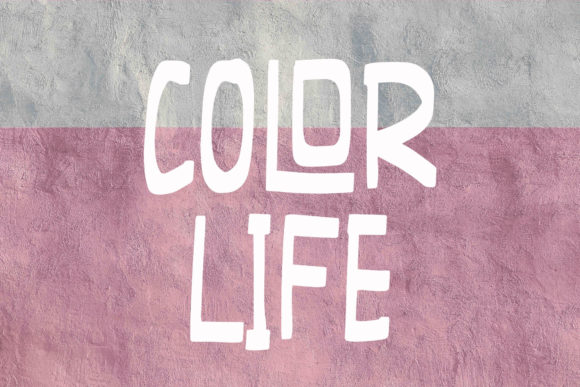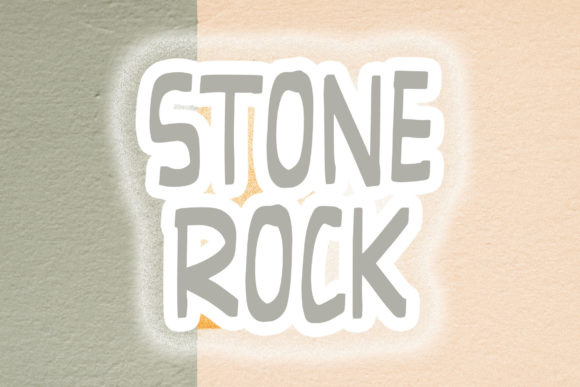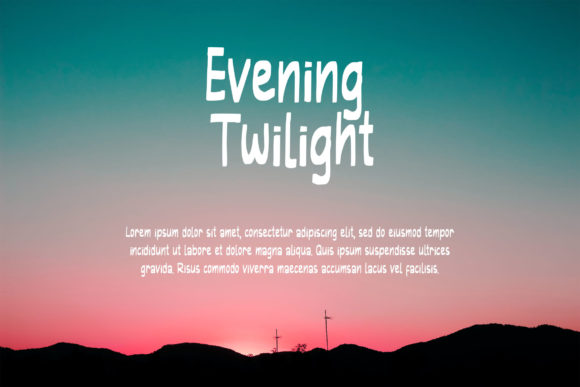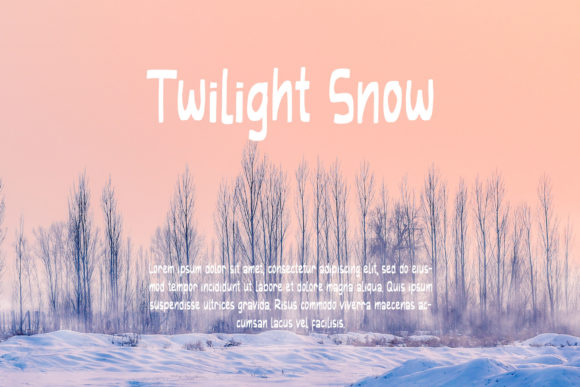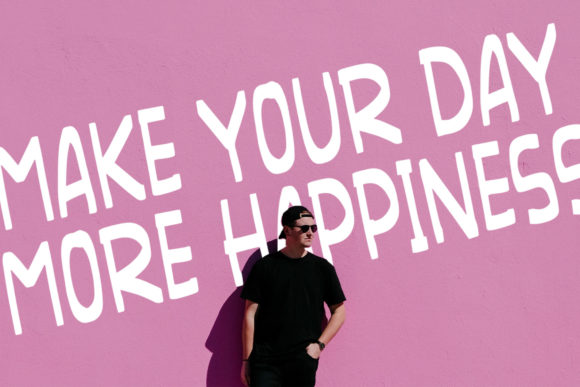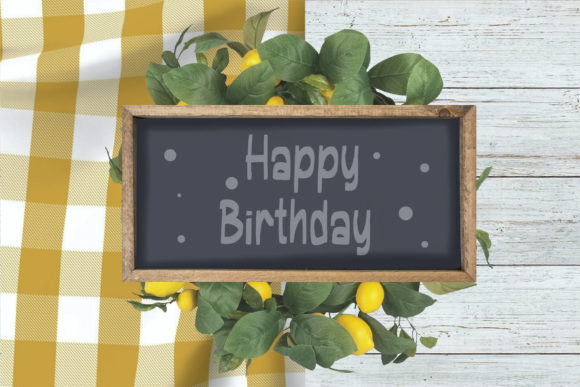
Introduction to Jacklo Font
Do you remember the moment when you stumbled upon the perfect font to elevate your creative project? For designers, that moment is priceless. It’s the spark that sets off a chain reaction of excitement and possibility. For me, that moment came when I discovered the Jacklo Font. Its charming, playful characters seemed to dance along the baseline, beckoning me to add it to my next design.
As a valuable design resource, the Jacklo Font is more than just a pretty face. With its high-quality, transparent background, it’s perfect for adding a touch of whimsy to any project. And the best part? It’s available for free download, making it accessible to designers of all levels. Whether you’re working on a personal project or a client’s creative brief, the Jacklo Font is sure to bring a smile to your face and a touch of magic to your design.
So, what makes the Jacklo Font so special? Let’s dive in and explore its features, and discover why it’s a must-have addition to any designer’s toolkit.
Key Features of Jacklo Font
- Features a transparent background, allowing for seamless integration with any design or image
- Perfect for use in digital designs, including logos, graphics, and typography, due to its crisp and clear resolution at 300 DPI
- Includes a range of weights and styles, providing designers with flexibility and versatility for their creative project
- Designed with precision and care, resulting in a professional and polished finish
Honest Review: Jacklo Font
As a designer, I’m always on the lookout for high-quality design resources to elevate my creative projects. Recently, I came across the Jacklo Font, and I’m excited to share my honest review.
- ✨ The Jacklo Font is a great addition to any design project, offering a unique and stylish feel.
- ✨ The transparent background option provides flexibility for designers to create stunning visual effects.
- ✨ The font is well-suited for a variety of creative projects, including logos, brochures, and social media graphics.
- ⚠️ The font may not be suitable for text-heavy designs, as it can be a bit difficult to read at smaller font sizes.
- ⚠️ Some designers may find the font’s unique style a bit too bold or overpowering for certain projects.
Overall, I’m impressed with the Jacklo Font and would recommend it to designers looking for a high-quality, unique font for their creative projects.
The Jacklo Font is a high-quality design resource that can be used for various creative projects. It features a transparent background, making it versatile for different applications.
To get the most out of the Jacklo Font, use it in combination with other design elements to create visually appealing and creative projects.
Comparison to Jacklo Font: Aleo Font has a more refined and modern feel, while Jacklo Font is more playful and cursive.
Comparison to Jacklo Font: Lato Font is more versatile and widely used, while Jacklo Font is more niche and suited for specific design projects.